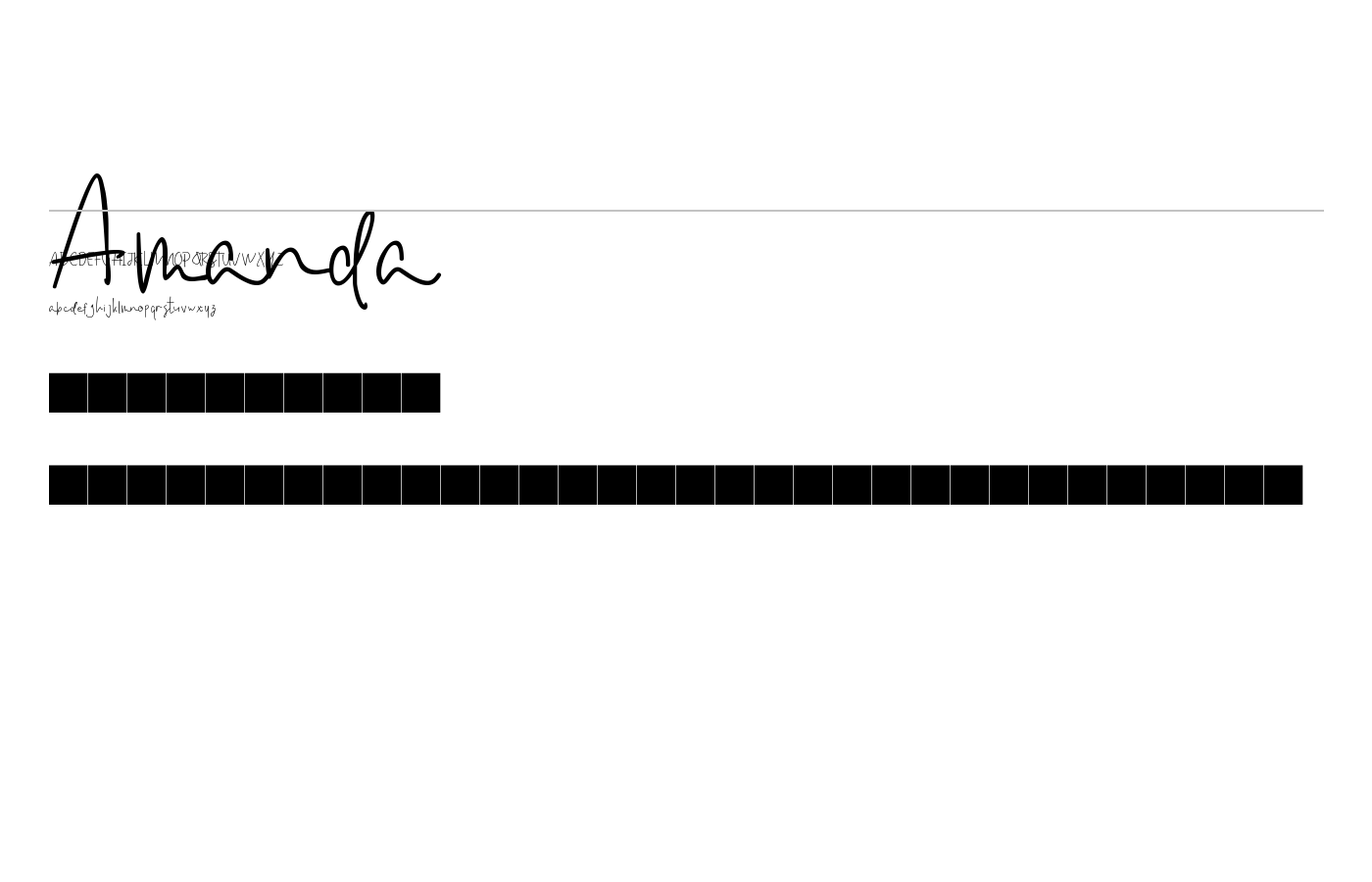
Amanda Font is a playful and casual handwritten script with a light, airy feel and smooth, flowing strokes. Its tall, slender letterforms and connected style give it a personal, friendly touch that works beautifully for invitations, branding, and creative projects that seek a warm, approachable vibe. This font shines best in display uses where its charming personality can stand out.
Amanda Font
About Amanda Font